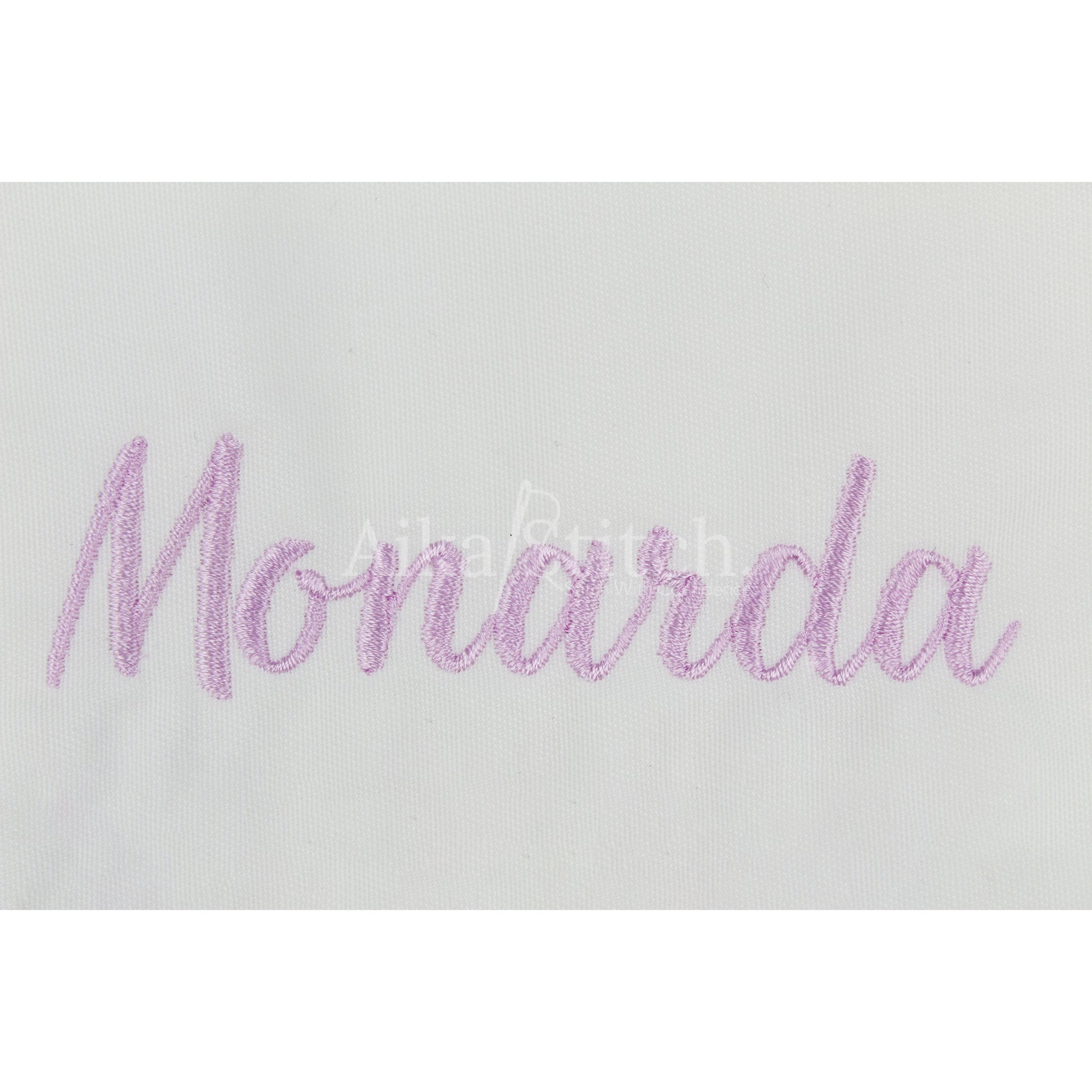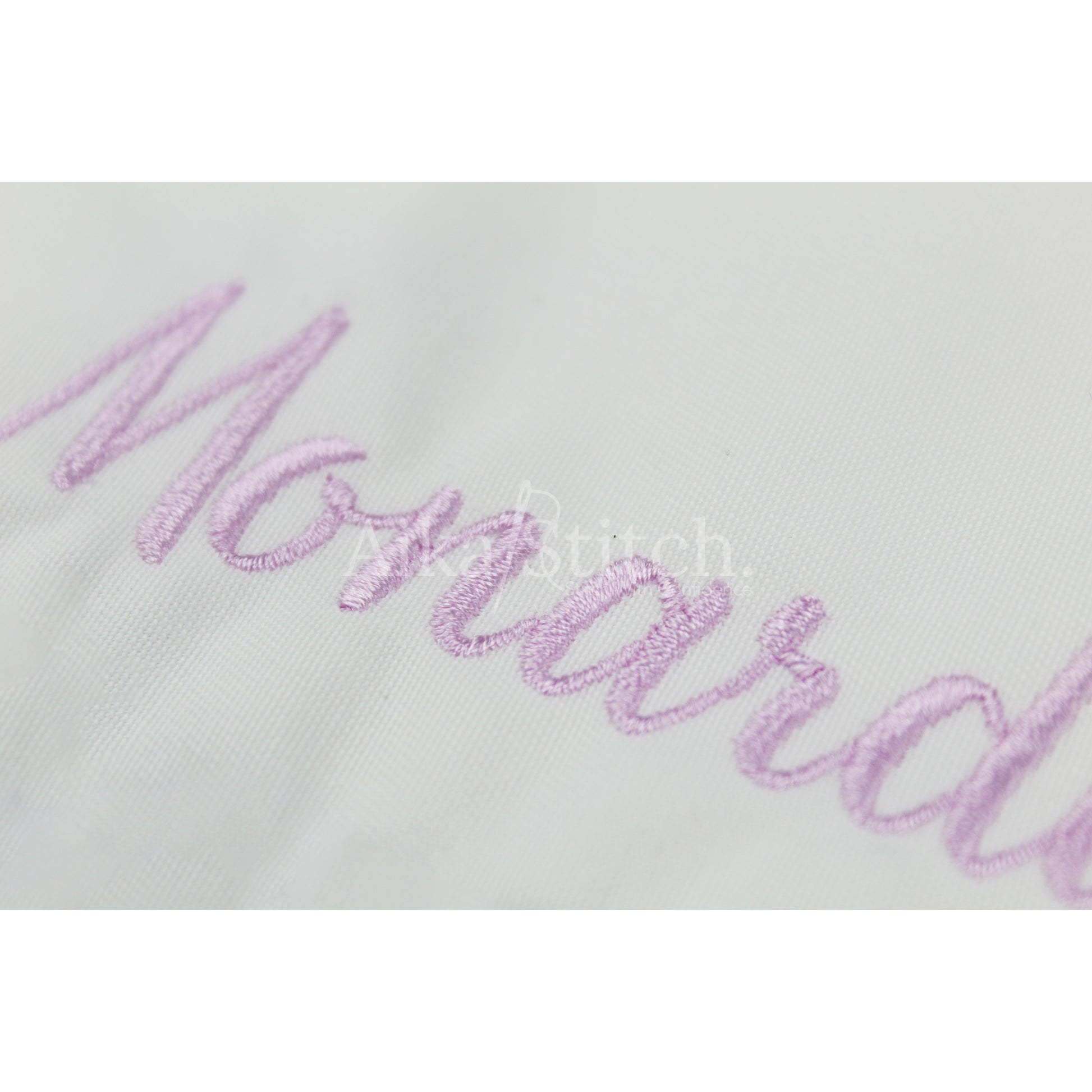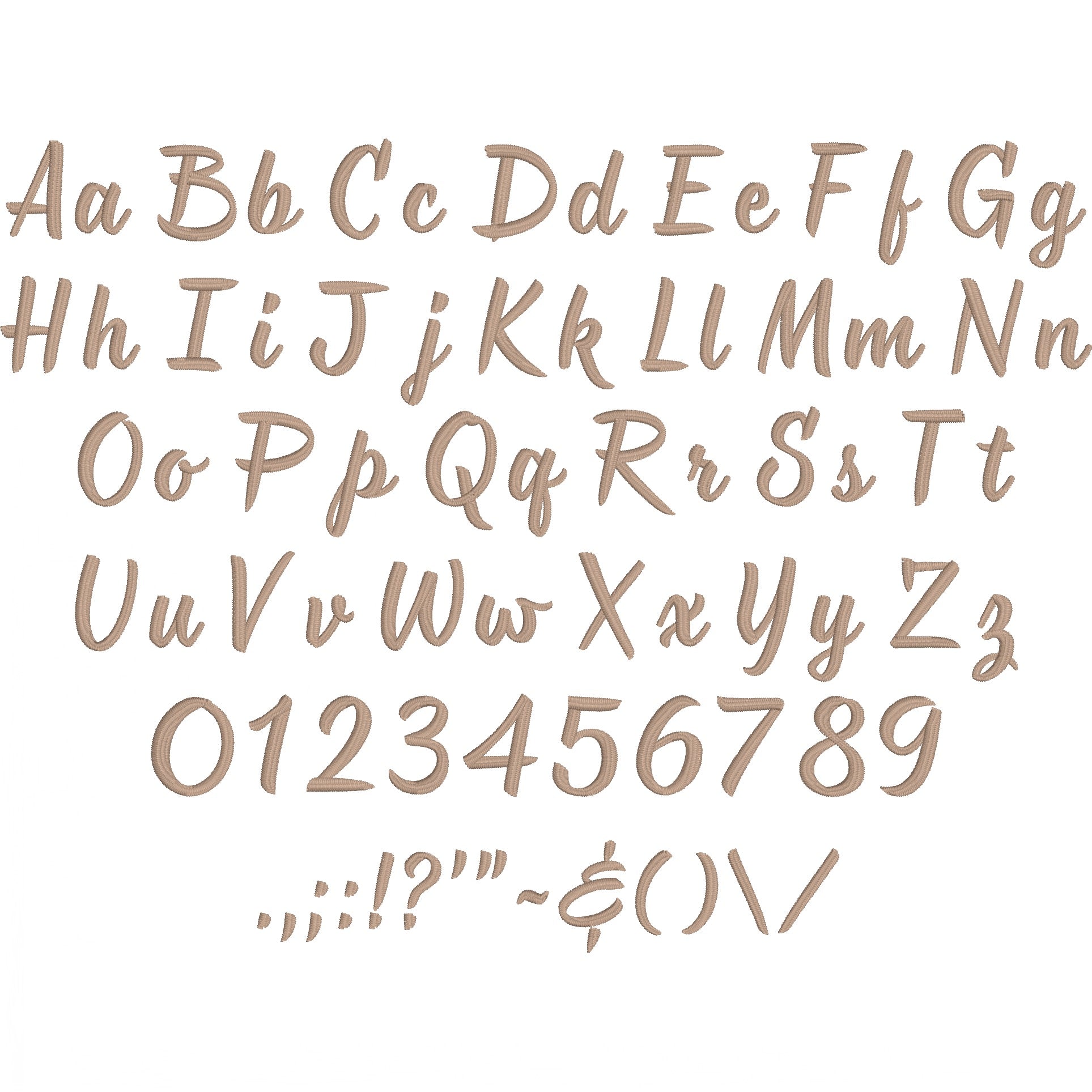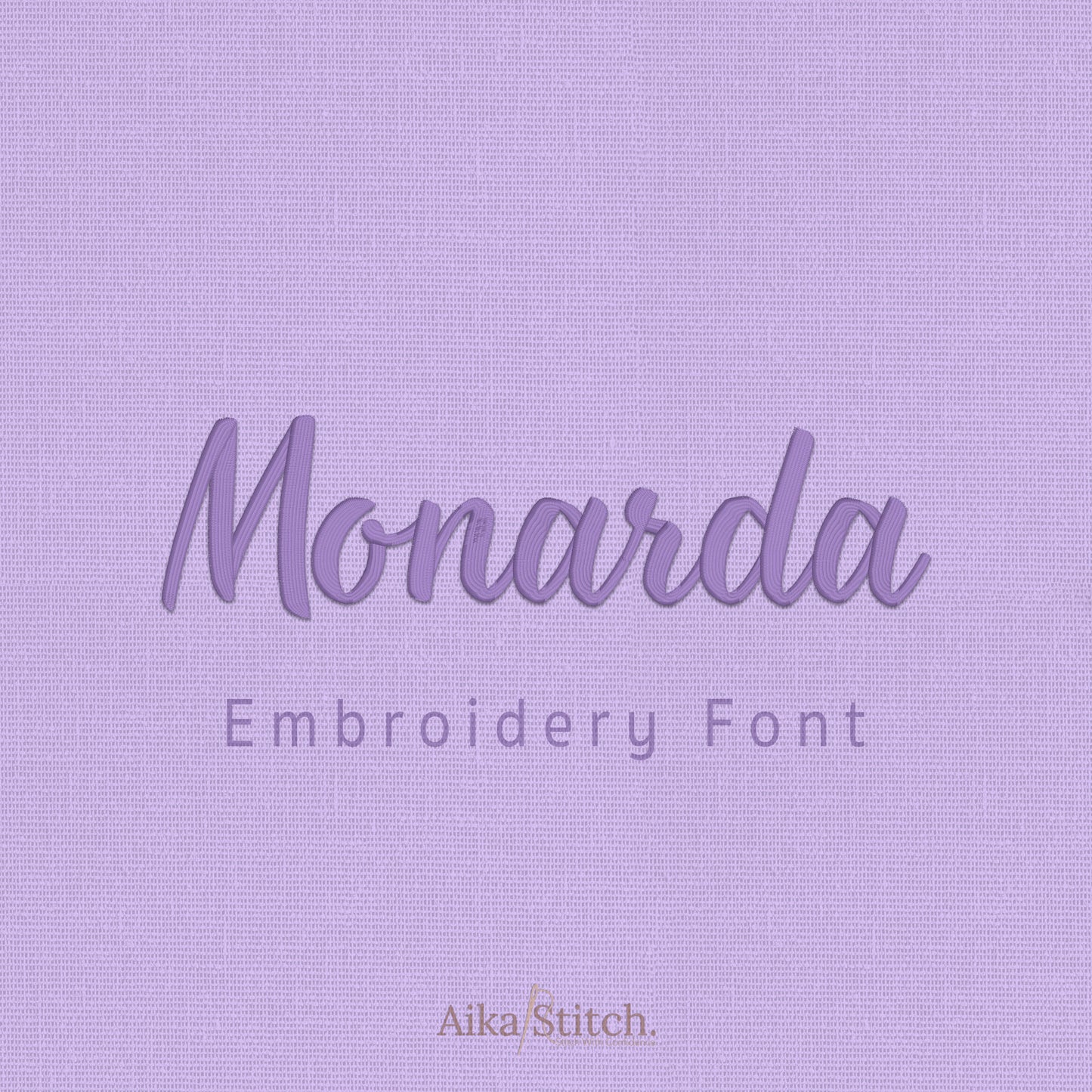
Monarda Script Elegant Embroidery Font
Monarda is a Script Elegant machine embroidery font featuring beautiful satin stitch lettering. Perfect for shirts, towels, hats, baby gifts, monograms, and small business embroidery projects.